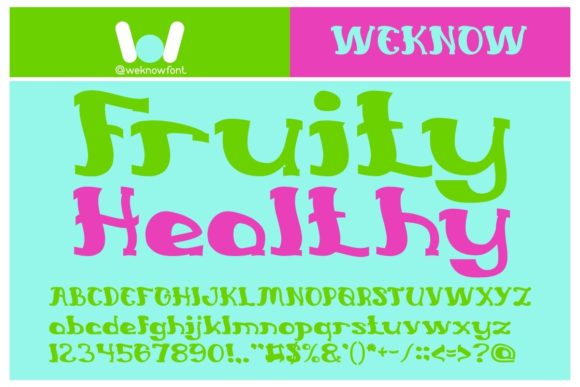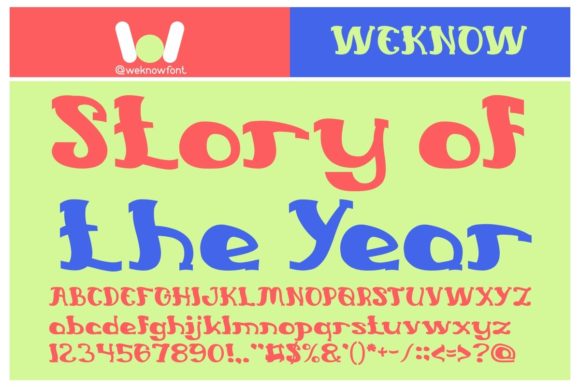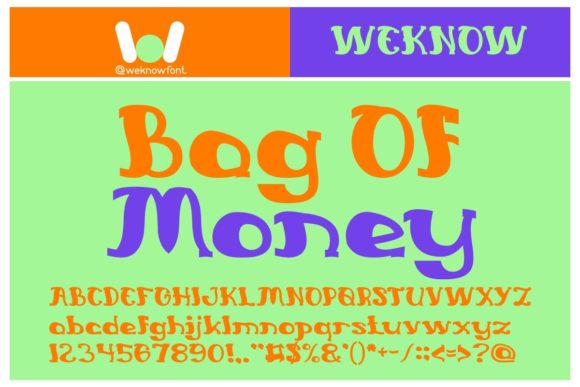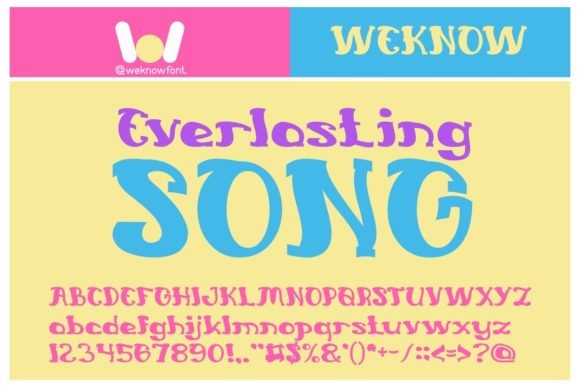
Introduction to Everlasting Song Font
Everlasting Song is a whimsical and wavy display font.
It has a modern and chic style and it will undoubtedly immerse your designs into a magical world .
Everlasting Song Font offers exceptional quality and versatility, making it a valuable addition to your design toolkit. Whether you’re creating for personal projects or commercial use, Everlasting Song Font delivers professional results.